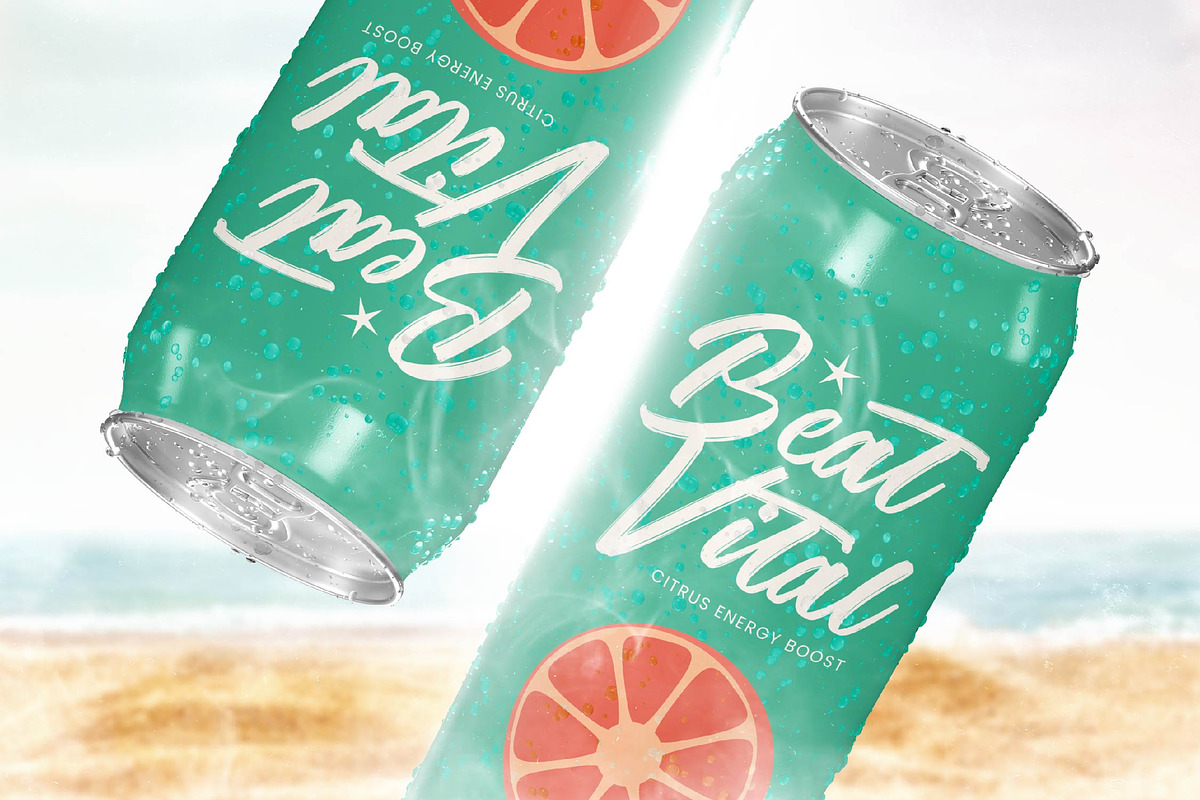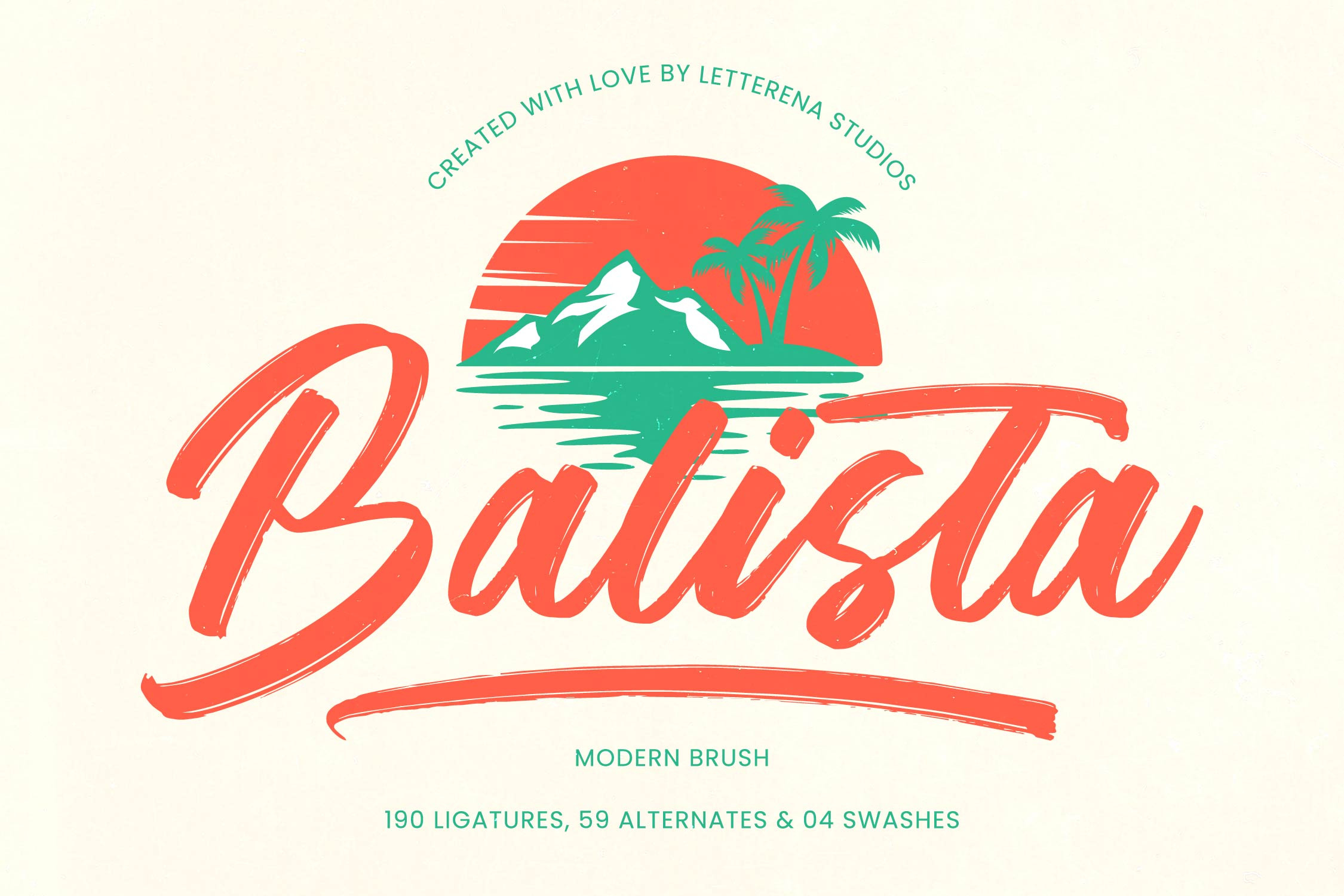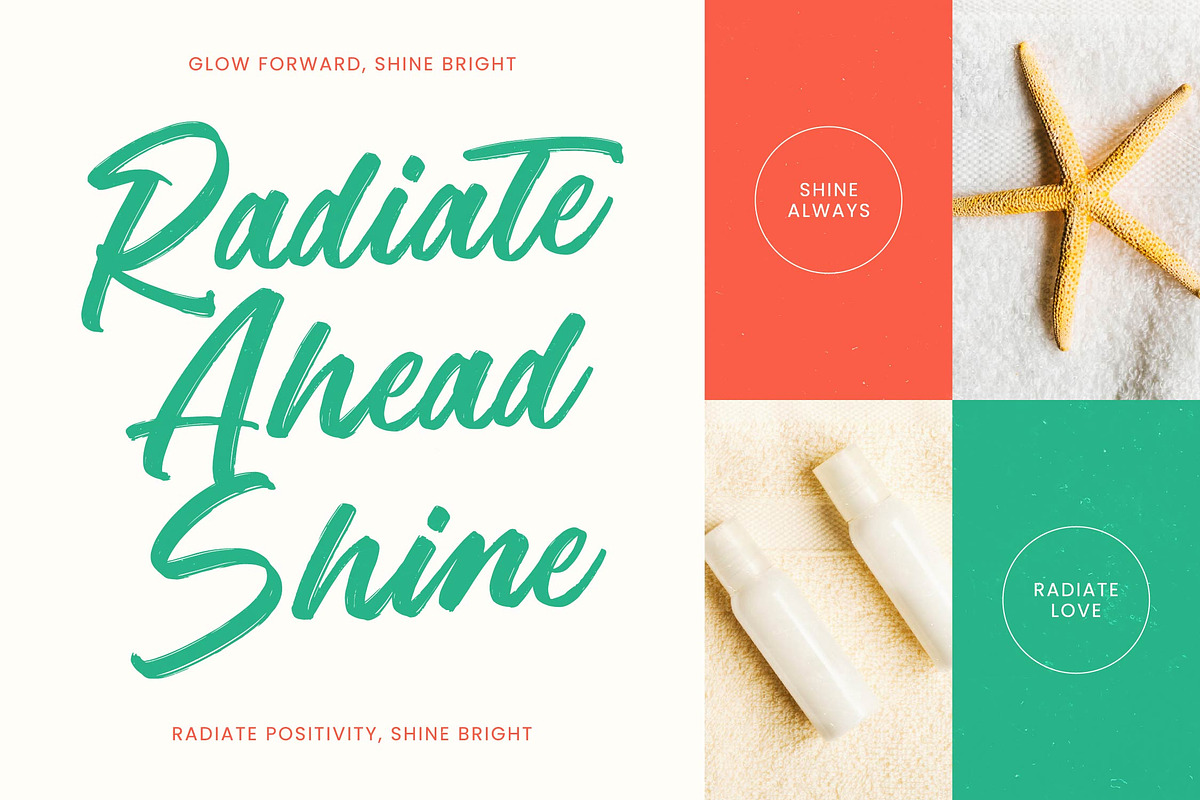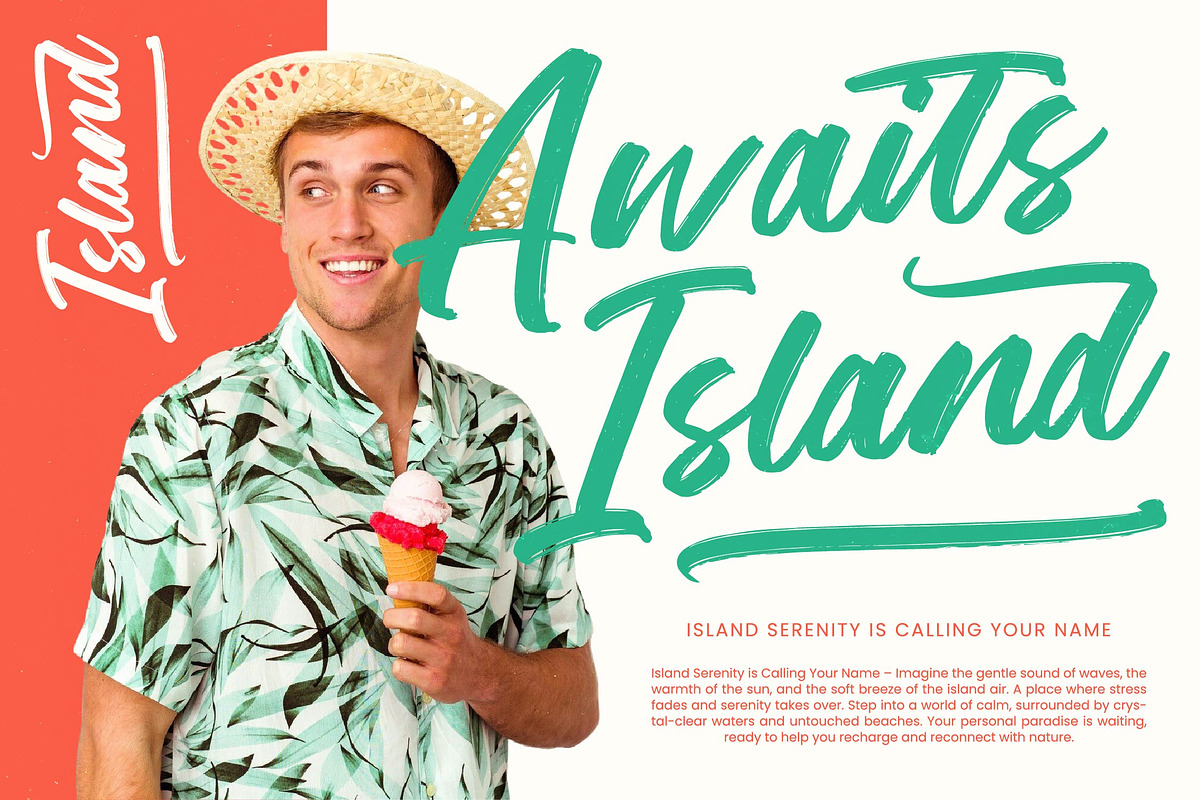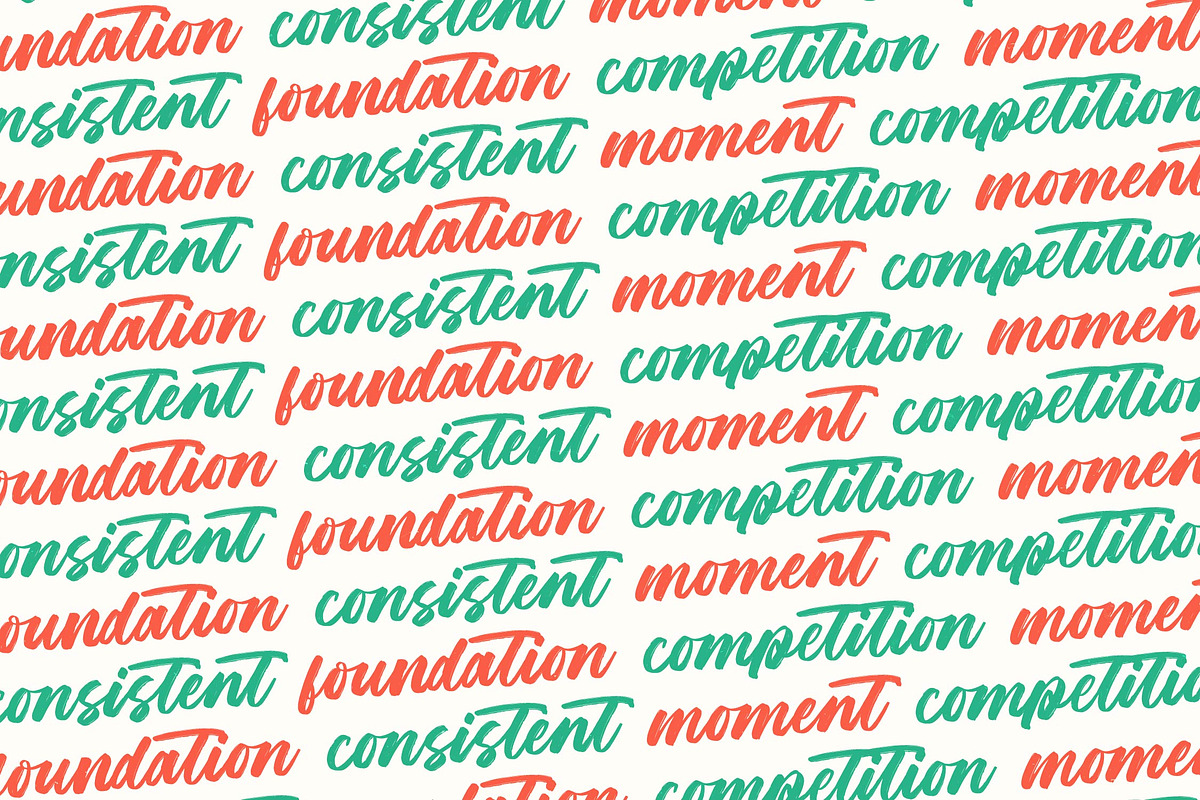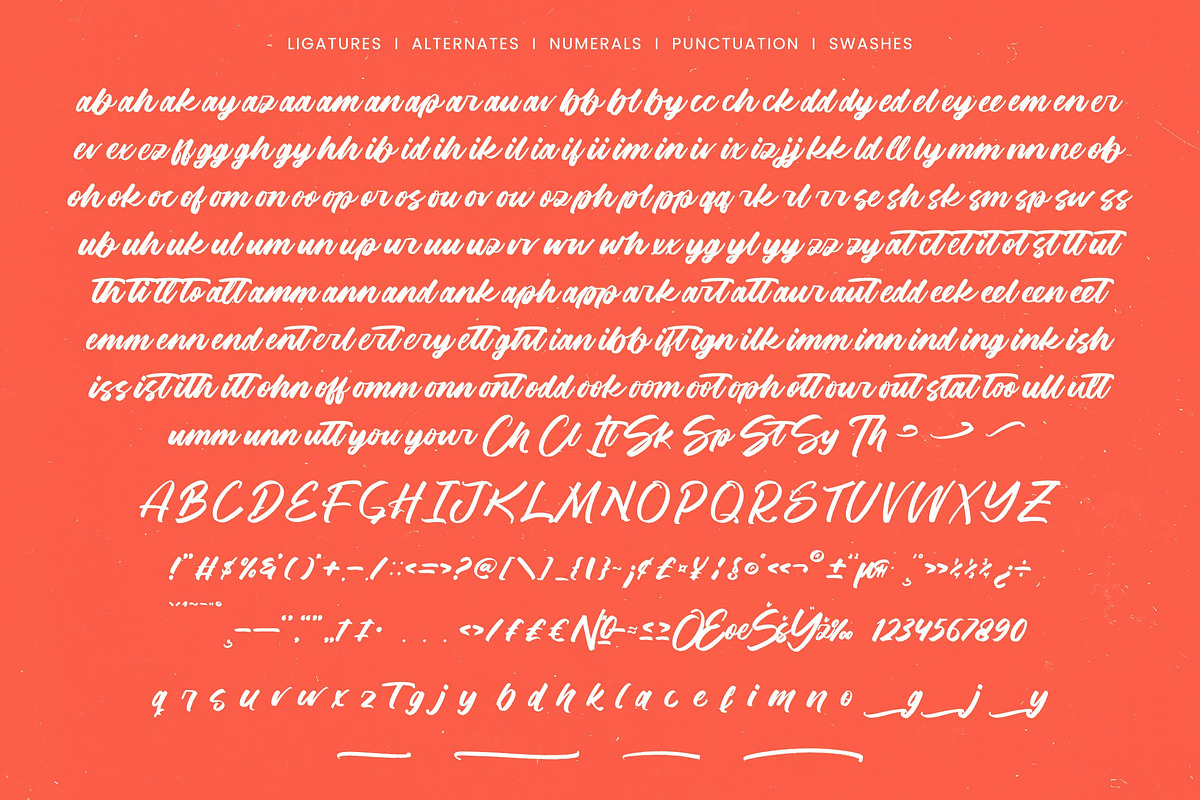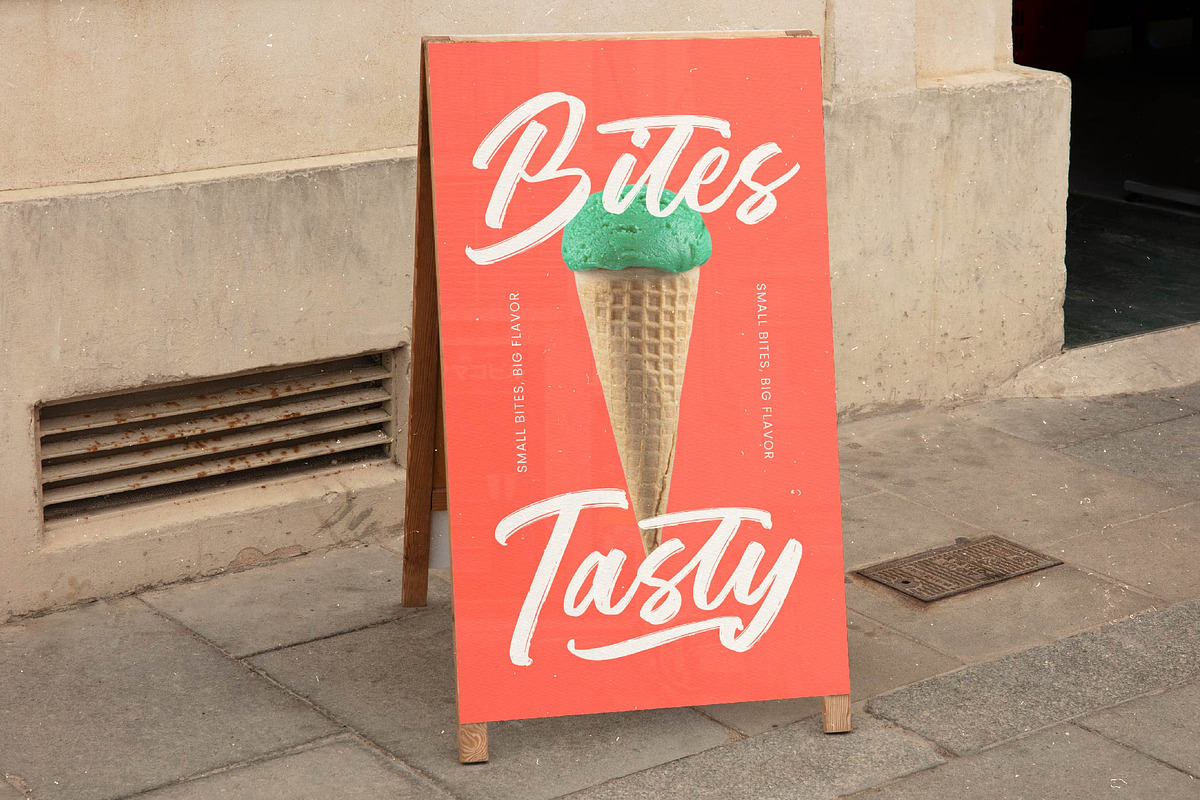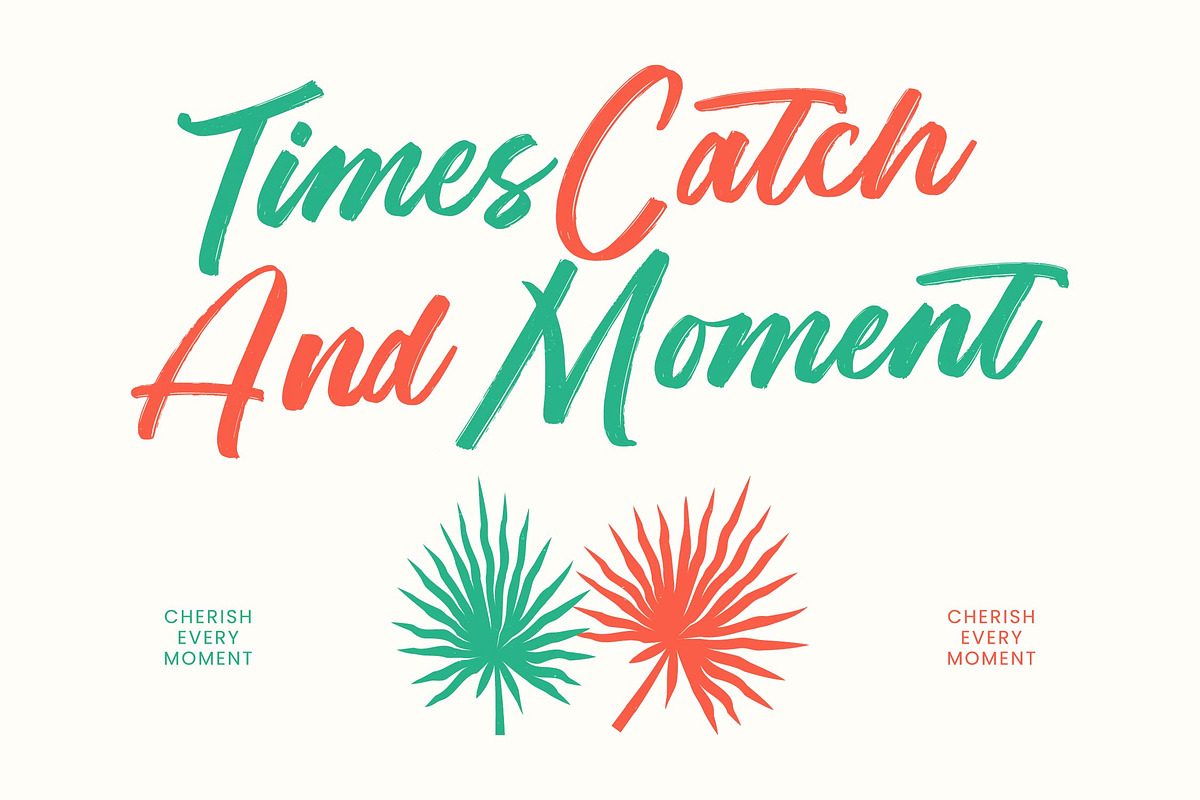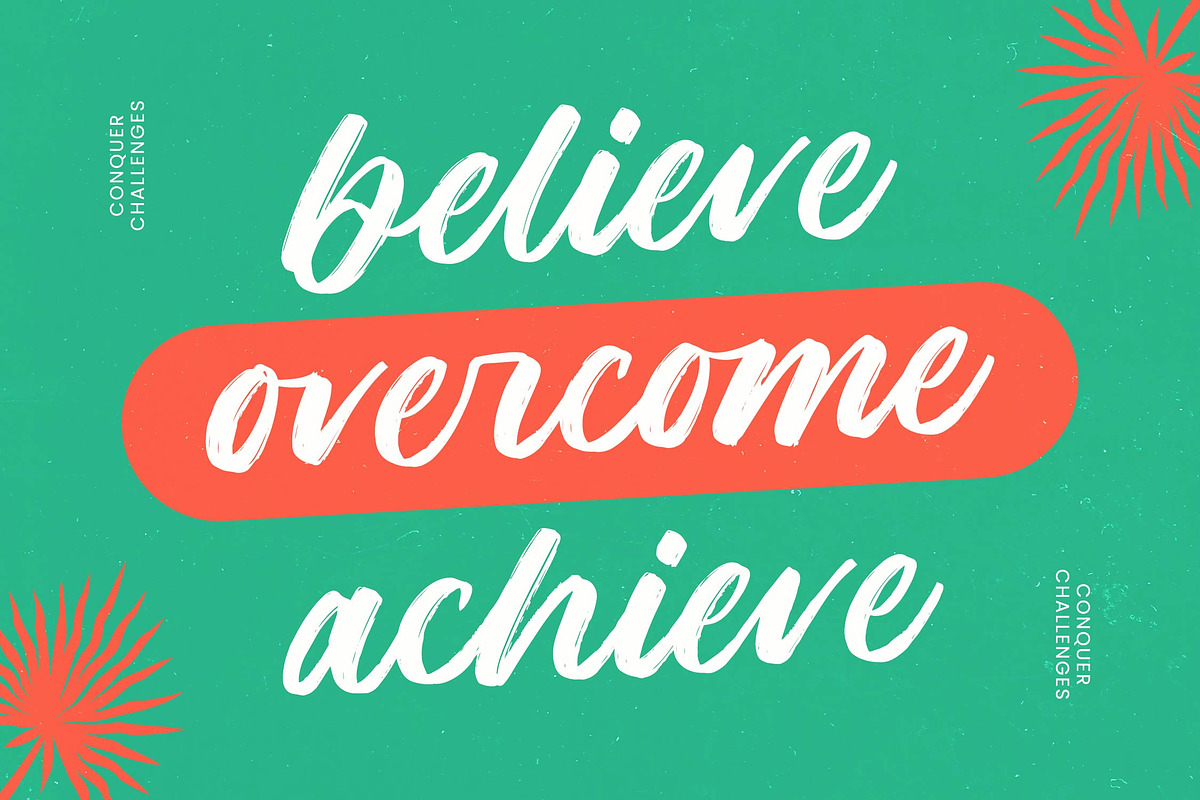
Balista Modern Brush Font
Balista - Modern Brush Font , Balista is a modern brush script designed with energetic strokes and a handcrafted coastal vibe. Its lettering feels lively and sun-soaked, capturing the look of bold paintbrush movement—perfect for tropical branding, beach-themed merch, summer posters, travel marketing, cafe logos, or any design that needs a warm and relaxed island mood. With 190 ligatures, 59 alternates, and 4 swashes, this font gives you massive flexibility to shape expressive, natural, and stylish typography. Balista brings the spirit of sunsets, ocean breeze, and hand-painted signage straight into your visual identity.